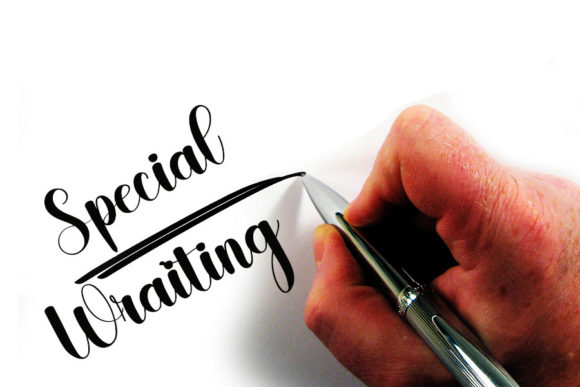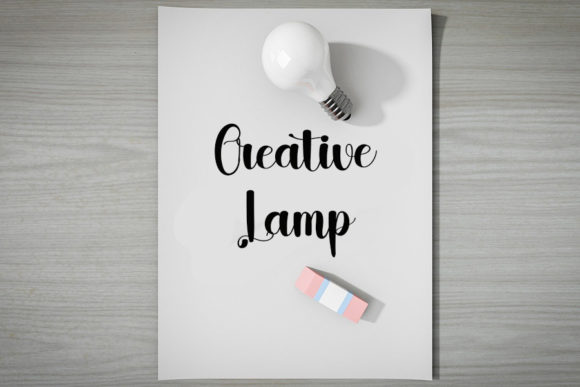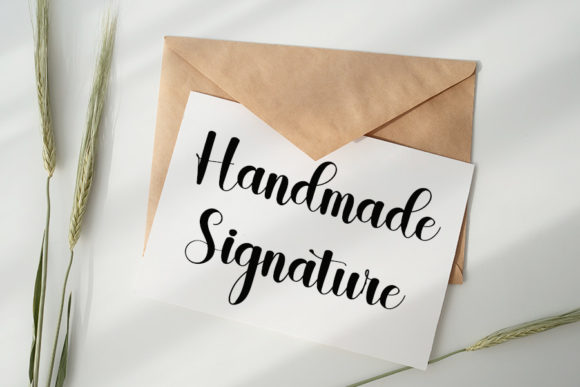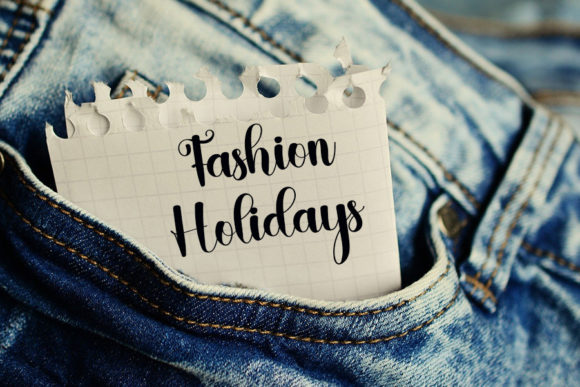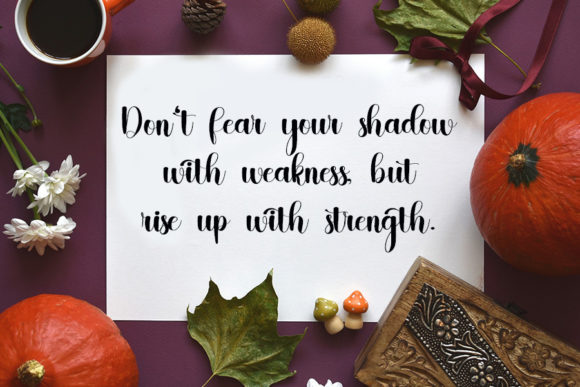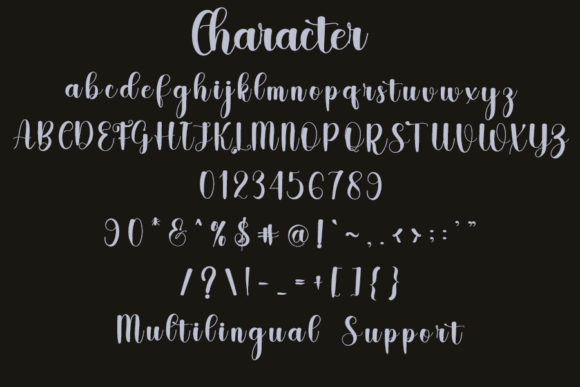
Introduction to Masthan Font
Masthan is an enchanting script font.
This delicate script has a wide spectrum of applications ranging from greeting cards to headlines and logos Masthan is PUA encoded which means you can access all glyphs and swashes with ease.
Key Features of Masthan Font